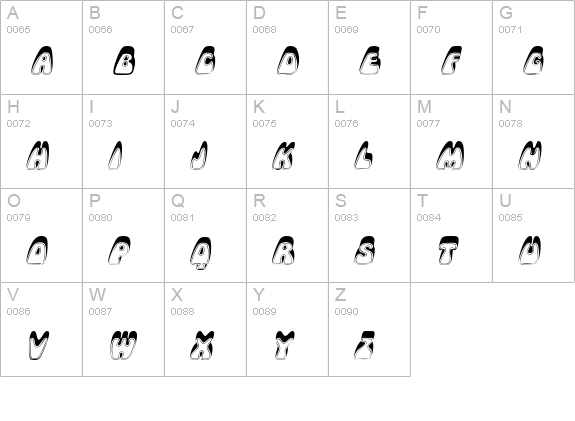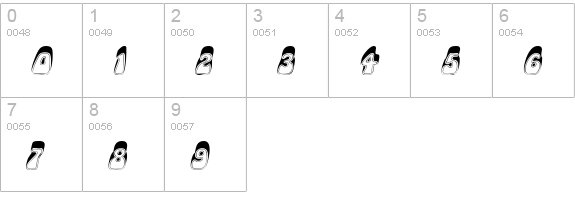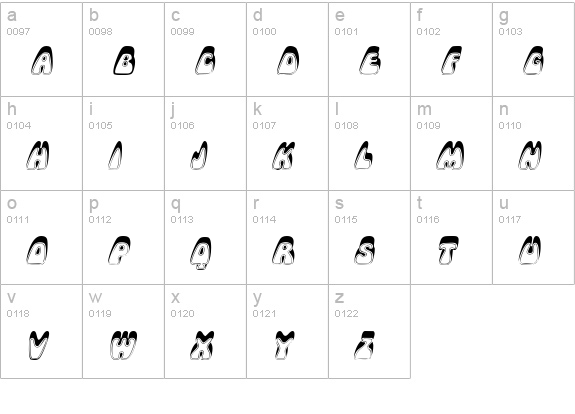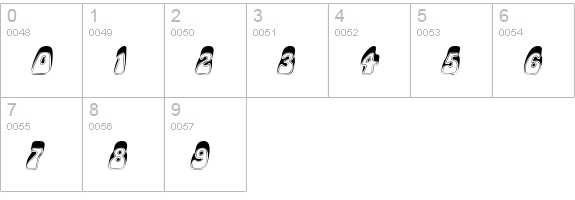
LoppDisplay Italic Font Details
LoppDisplay Italic is a distinctive, italic variant in the LoppDisplay typeface family \xE2\x80\x94 well suited to design and typography projects.
Introducing LoppDisplay Italic font, a sleek and stylish typeface designed to make your text stand out with a touch of elegance. The italicized design adds a modern twist to any project, making it perfect for branding, headlines, and creative designs. The fluid curves and unique letterforms of LoppDisplay Italic font create a dynamic and eye-catching visual impact. Best of all, LoppDisplay Italic font is available for free download at FontsMarket.com. This means you can easily access this versatile font and elevate your designs without any cost. Whether you're a designer, freelancer, or student, LoppDisplay Italic font offers a sophisticated and professional look that will enhance your projects. Don't miss out on this opportunity to add a touch of sophistication to your work with LoppDisplay Italic font, now available for free at FontsMarket.com.